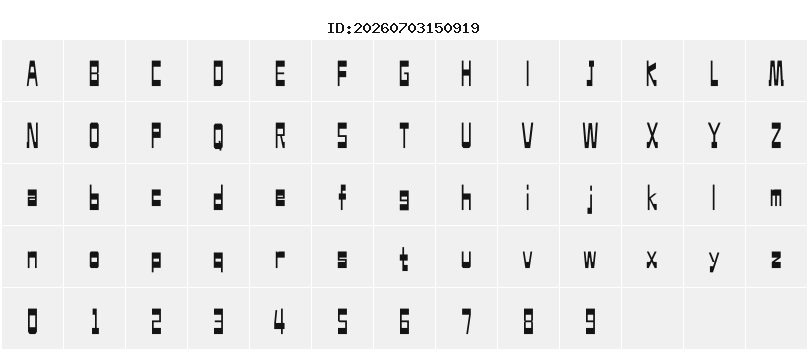
181-上首未来体 Preview
• Font Name: 181-上首未来体
• Full Font Name: 181-上首未来体
About 181-上首未来体.ttf
181-上首未来体.ttf is a modern, elegant sans-serif font designed for ultimate readability and visual harmony. Perfect for branding, headlines, web design, and print materials.